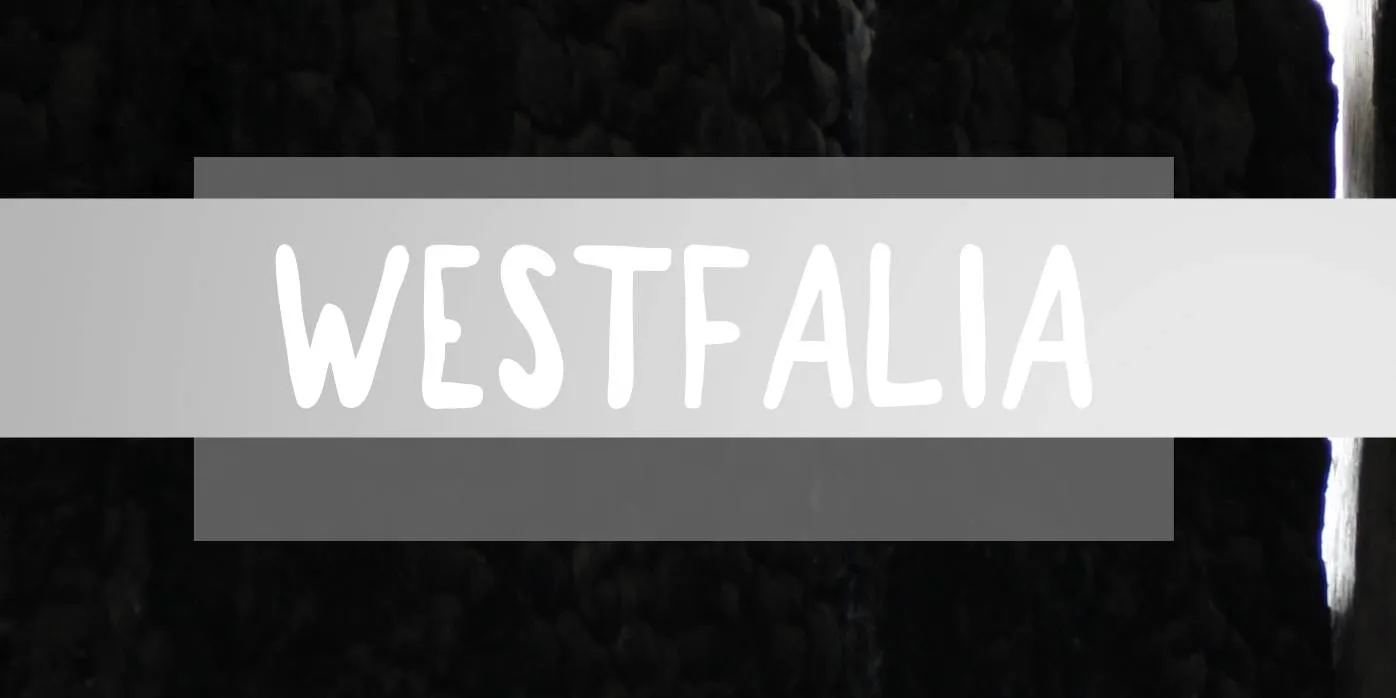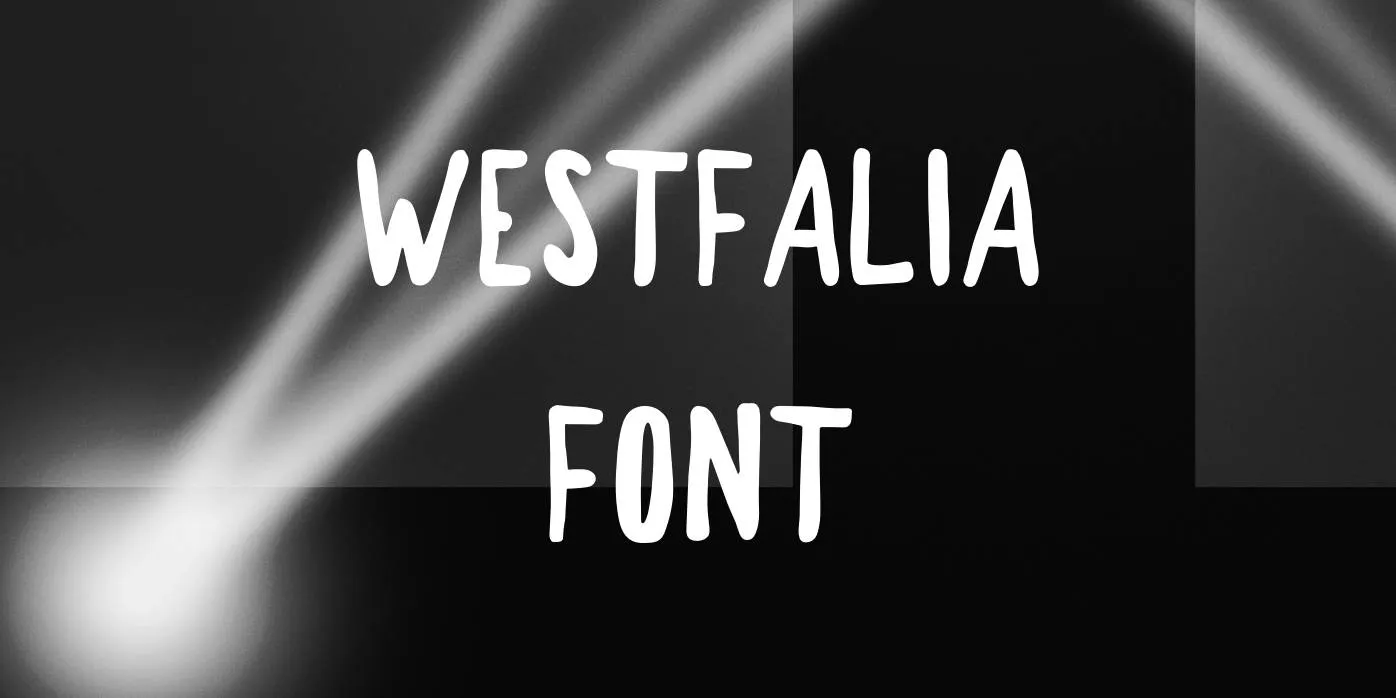
Westfalia Font
We present a very attractive and stylish typeface that is known by the name Westfalia Font. This font family is specially designed for titles and other similar purposes. Its line thickness and messy edging make it highly visible and readable. It belongs to the Brush typeface.